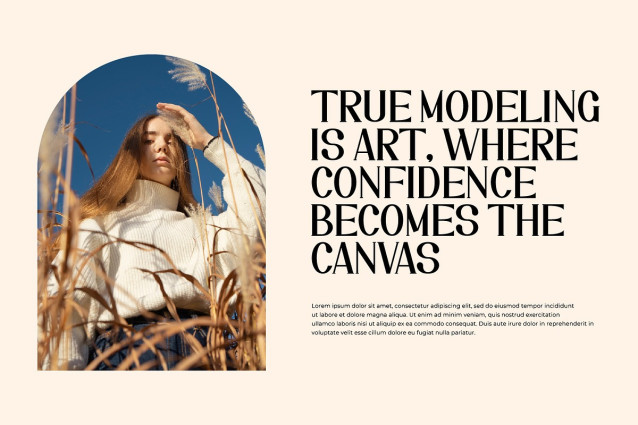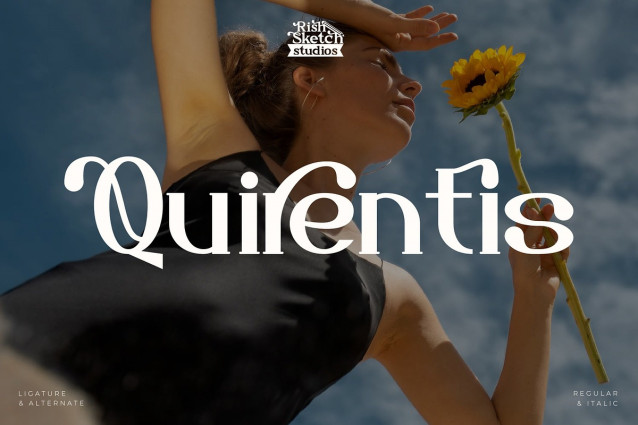
Quirentis Font
Quirentis Font – Serif Typeface Font, from Rishsketch Studios, is a premium Serif Typeface Font, perfect for any project that requires a distinctive, and premium feel.